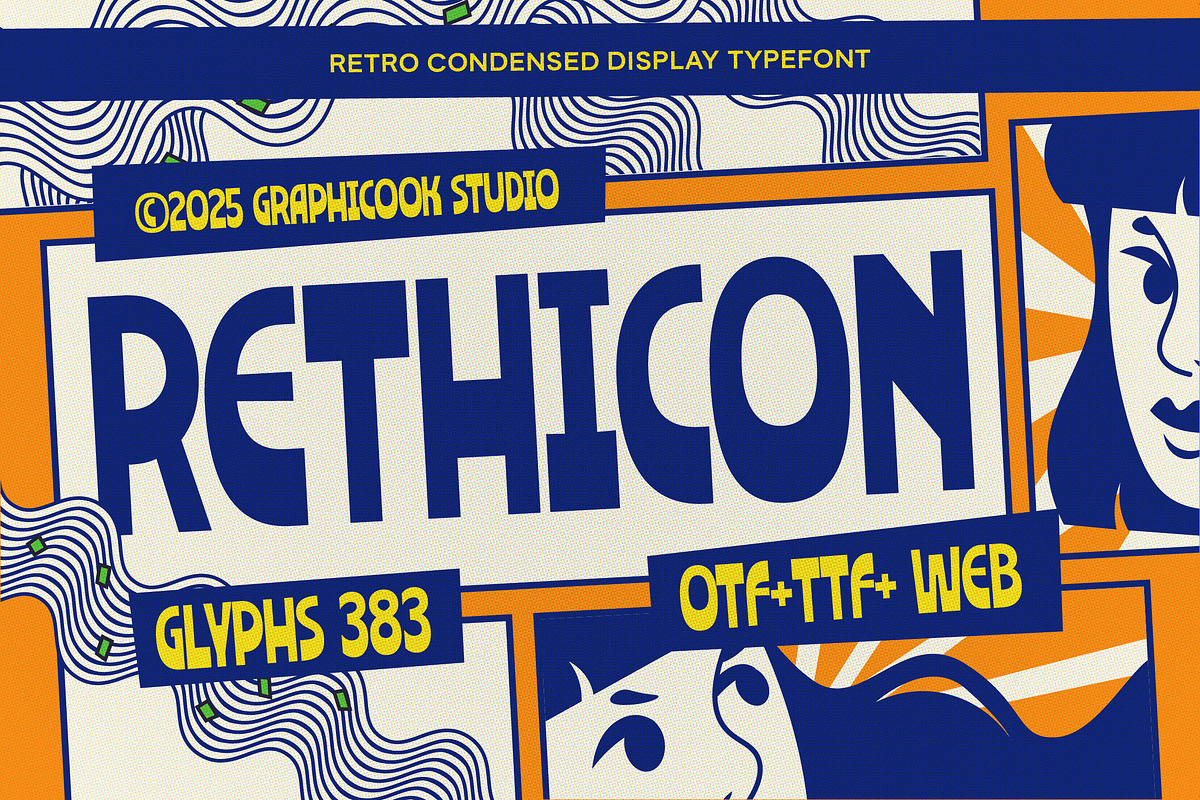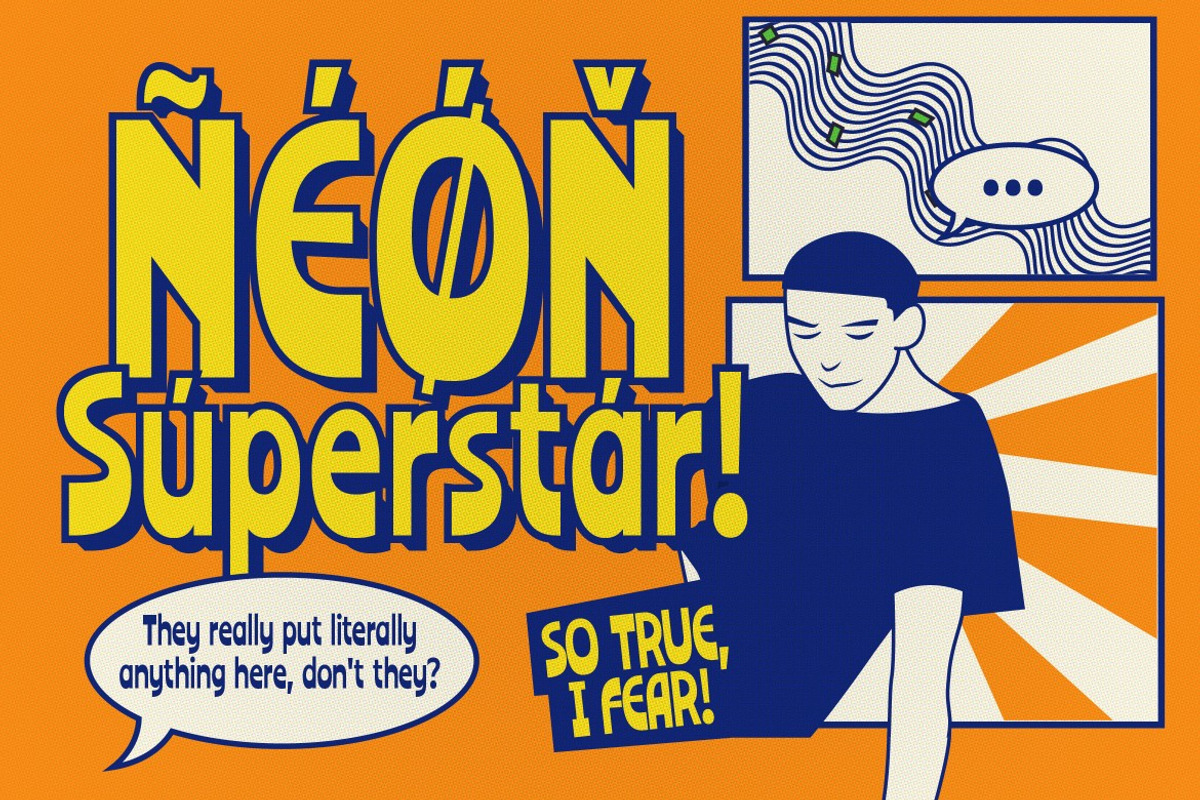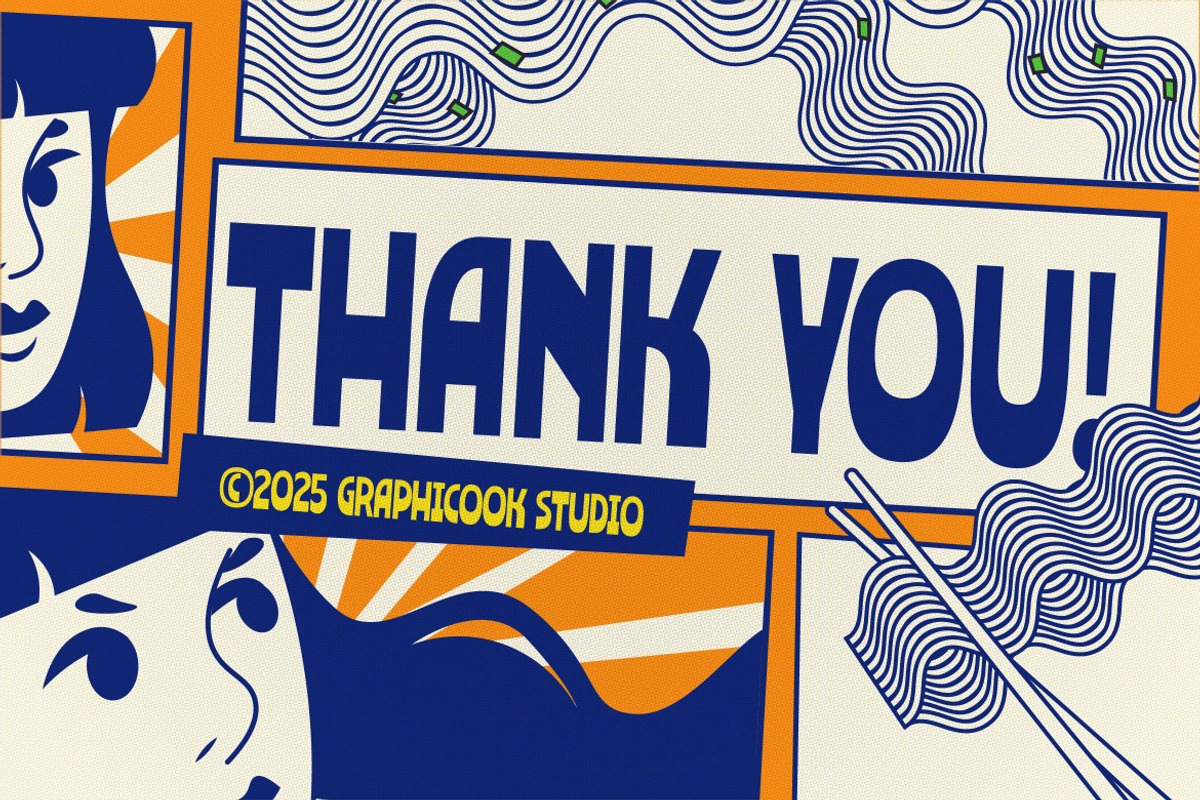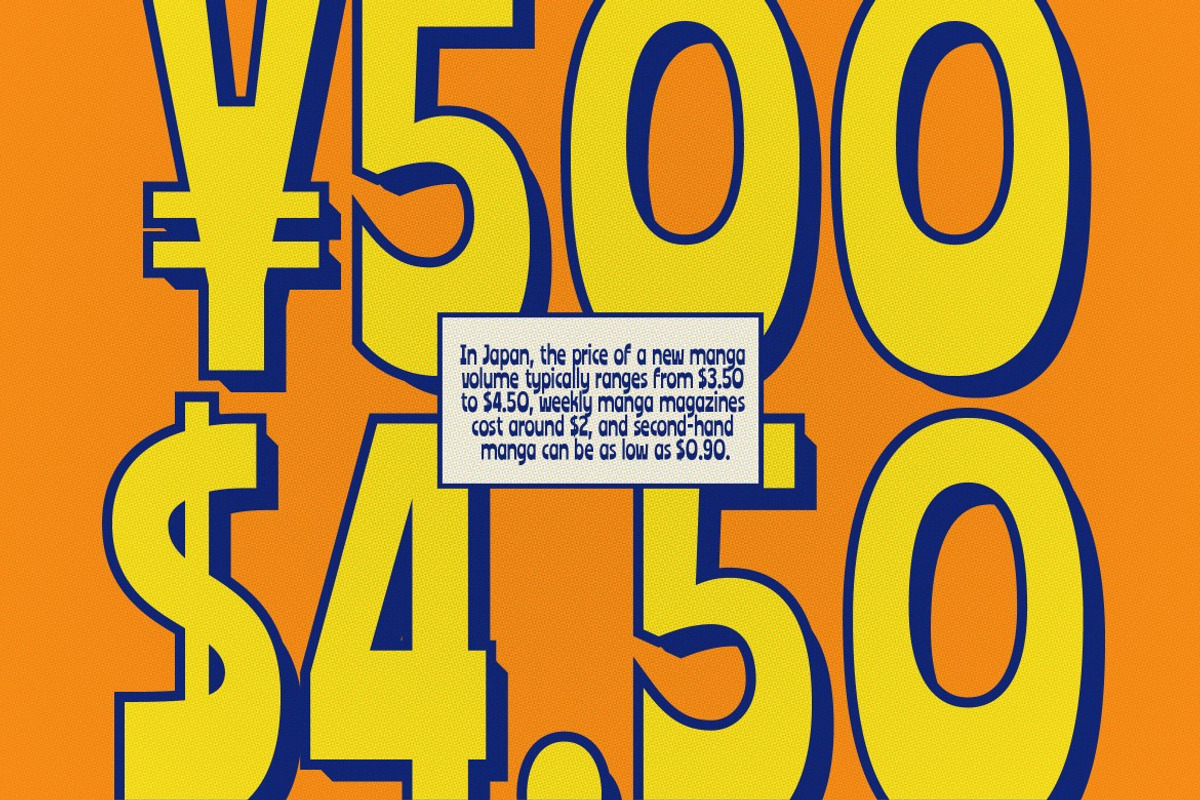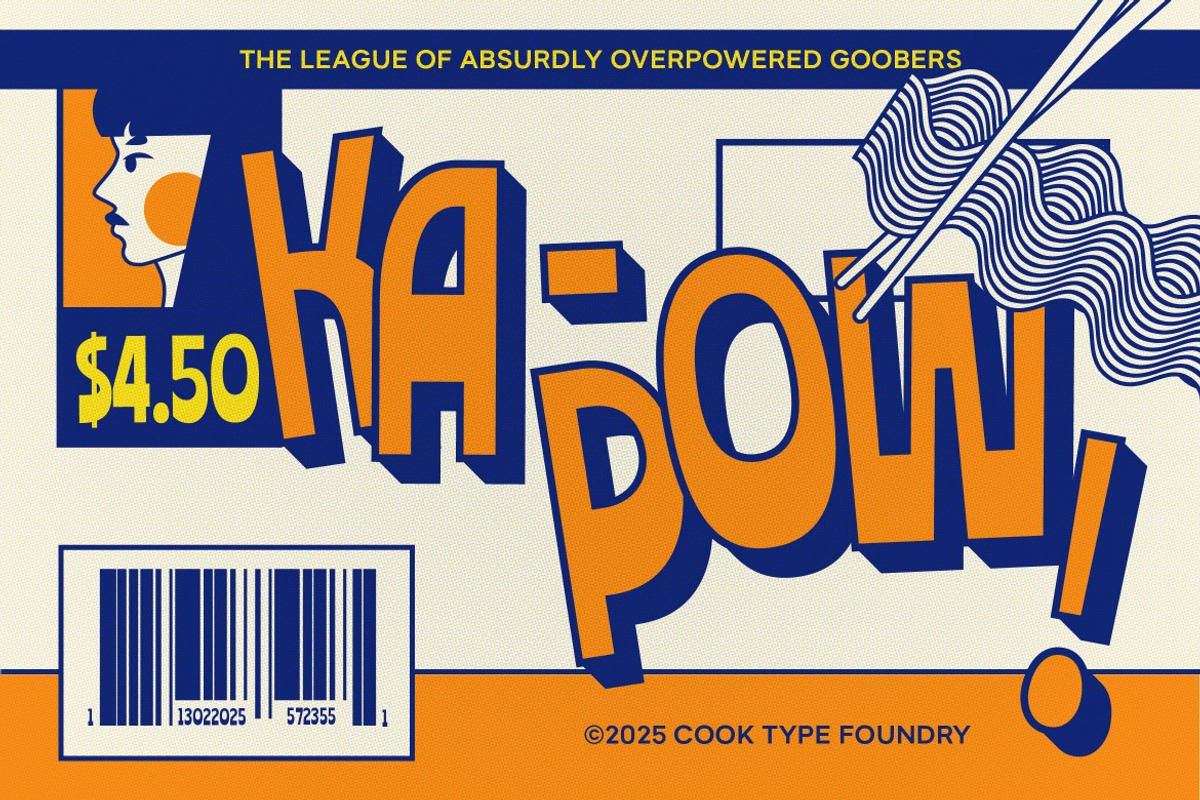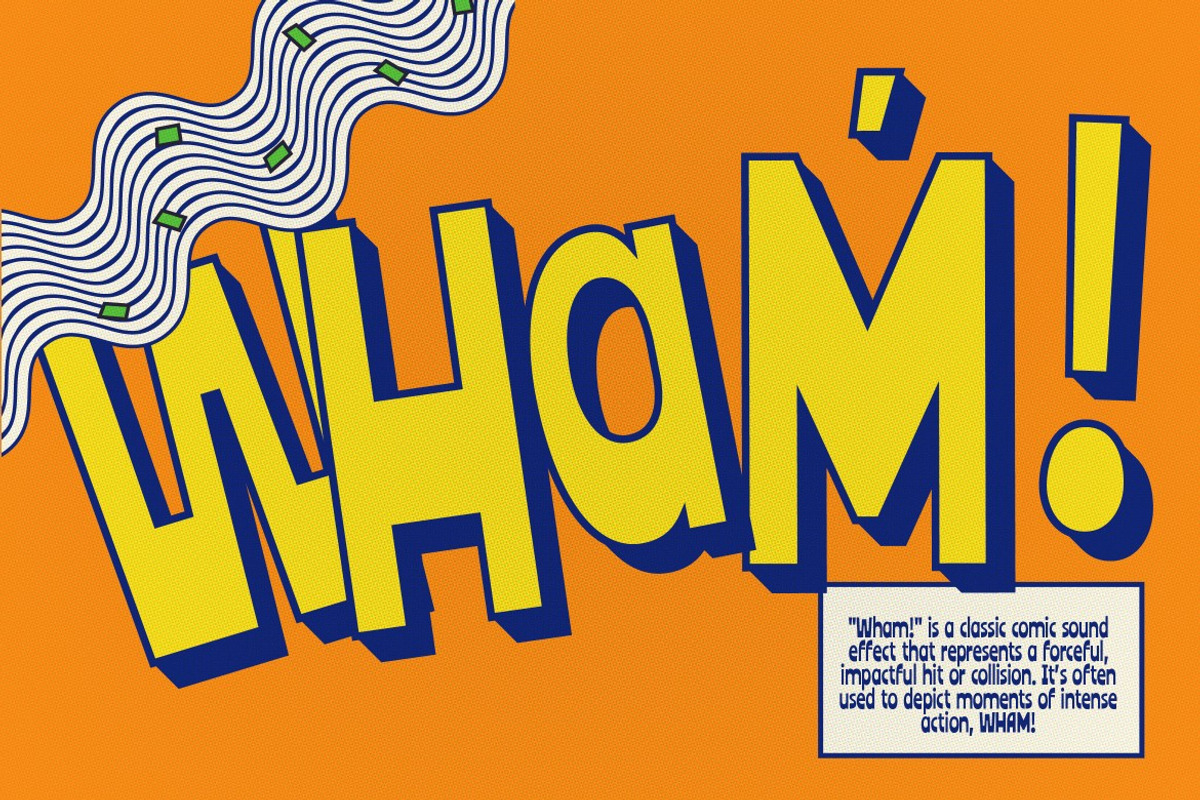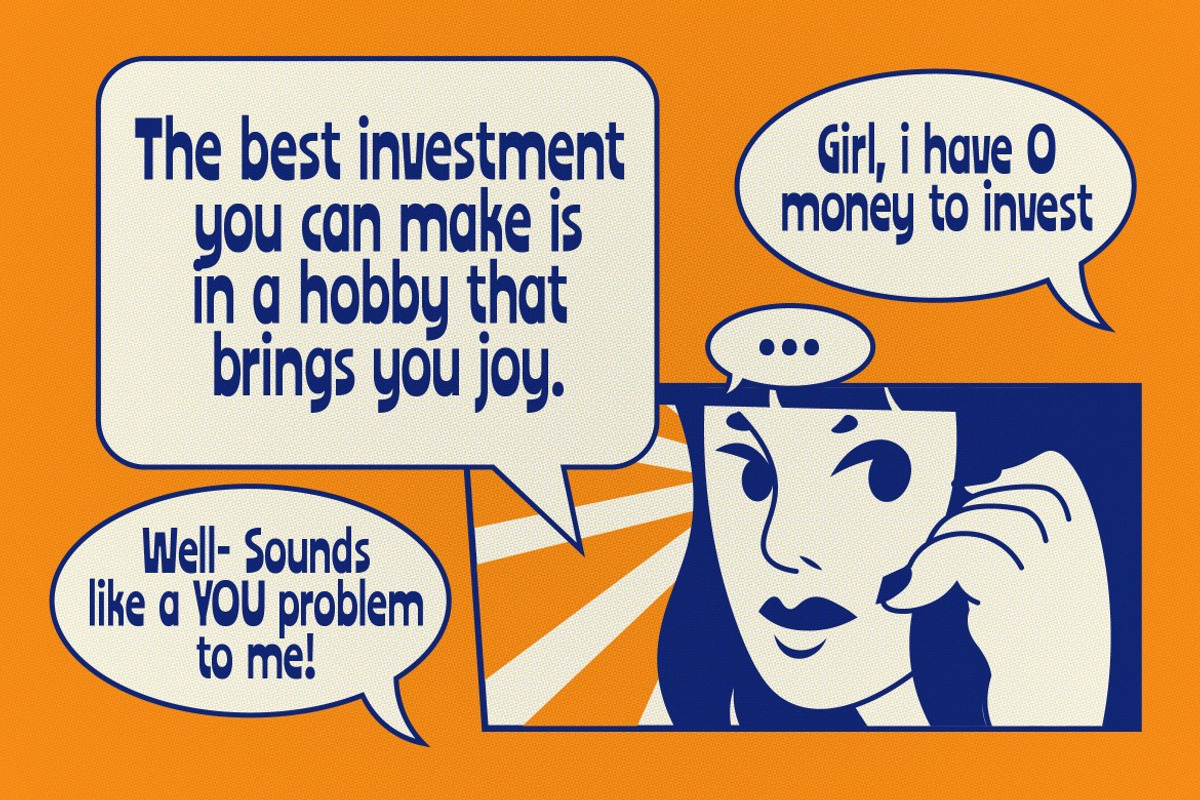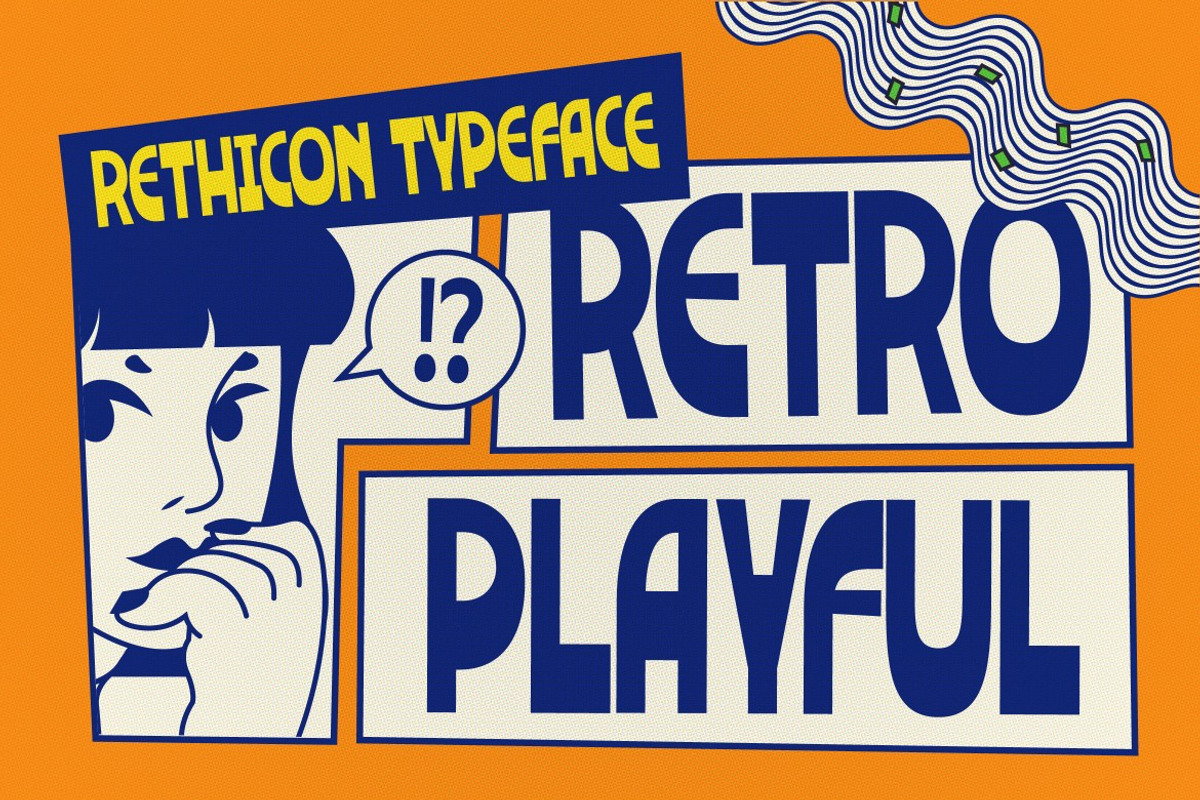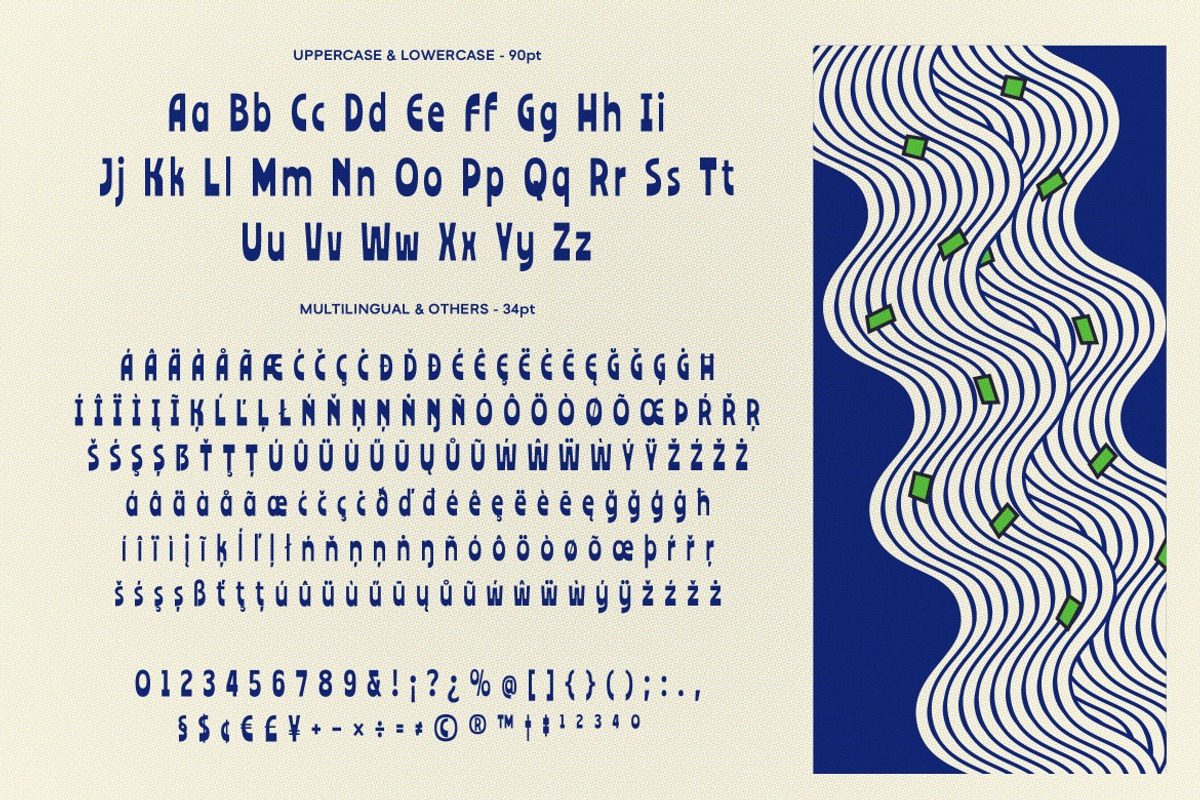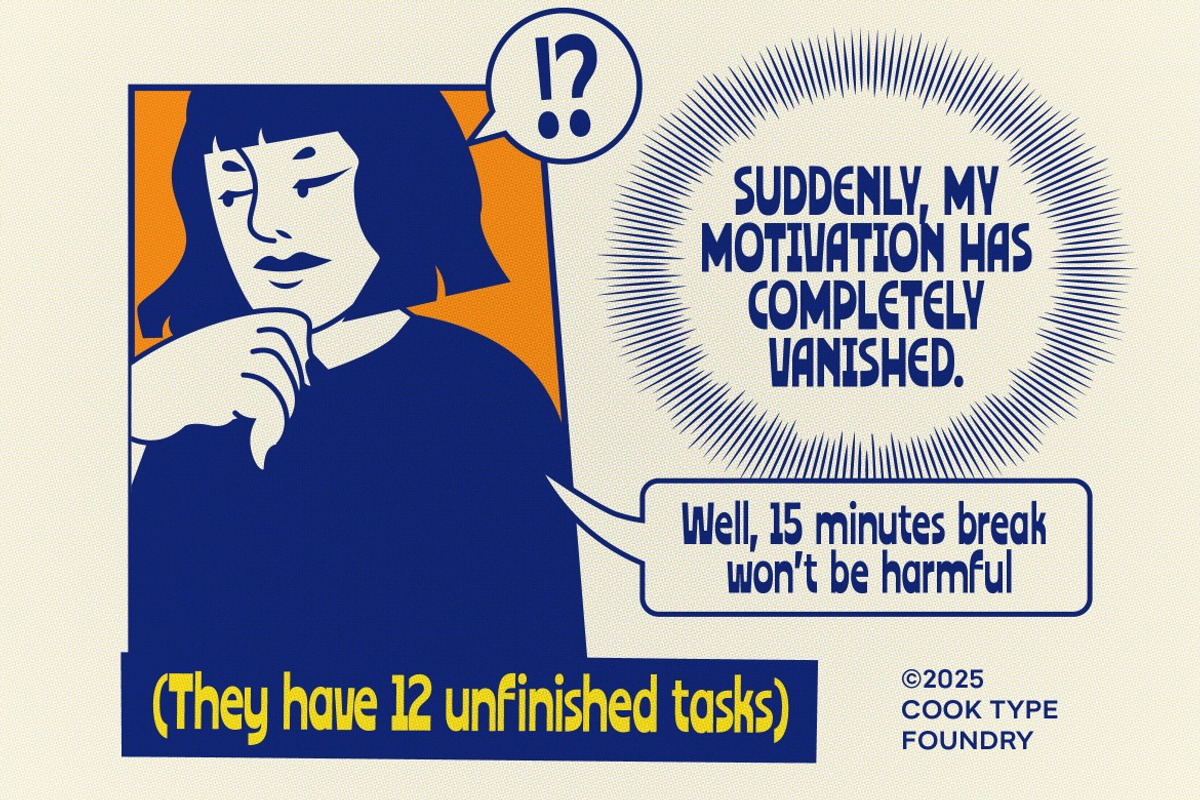
Rethicon
Rethicon is a retro-styled font with a unique, playful character. Its organic, non-rigid shapes give off an energetic vibe, making it great for posters, logos, packaging, or any design that aims to stand out with bold, unconventional charm.
Rethicon is perfect for headlines, logotypes, magazines, packaging, quotes, movies, games, cover albums, book covers, and flyers, it's a perfect solution for creating eye-catching designs that stand out in any context.